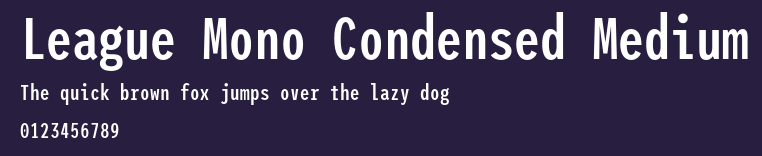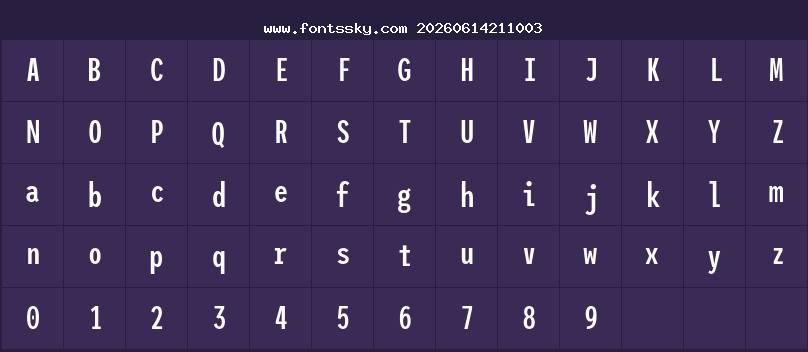
• Font Name: League Mono Condensed Medium
• Full Font Name: League Mono Condensed Medium
• Designer: Tyler Finck
• Manufacturer: The League of Moveable Type / Tyler Finck
About League Mono Condensed Medium.otf
League Mono Condensed Medium.otf is a modern, elegant sans-serif font designed for ultimate readability and visual harmony. Perfect for branding, headlines, web design, and print materials.